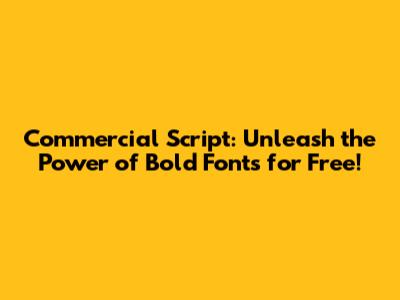
- Strategic Placement: Use bold fonts sparingly. Overusing them can dilute their impact. Think of them as seasoning—a little goes a long way. Make sure to use bold for headlines, key phrases, or important statistics. Your goal is to emphasize the information that you want to stand out.
- Consider the Audience: Tailor your font choices to your target audience. Consider the tone of your commercial and select fonts that reflect that tone. For instance, a fun, energetic commercial might use a bolder, more playful font, while a more serious commercial would use a more clean and elegant font.
- Readability Matters: Prioritize readability. Select fonts that are easy to read, even in bold. Avoid overly stylized fonts that might be difficult to decipher, especially on smaller screens or in fast-paced commercials.
- Consistency: Be consistent with your bold font usage. Establish a style guide and stick to it throughout your script. Consistent use of bold fonts helps the audience identify key information quickly.
Hey there, fellow creatives and marketing enthusiasts! Are you ready to supercharge your commercial scripts and grab your audience's attention? Well, you're in the right place! We're diving deep into the world of commercial scripts and, more specifically, how to make your words pop using bold fonts, all without breaking the bank. That's right, we're talking about commercial script bold font options that are absolutely free! I will guide you through crafting compelling scripts that convert, providing tips and tricks to make your commercial script stand out. This guide will help you craft captivating scripts that resonate with your audience and leave a lasting impression. Let's get started!
The Magic of Commercial Scripts and Why They Matter
Commercial scripts are the unsung heroes of marketing. They're the backbone of radio ads, TV commercials, online video campaigns, and even in-store announcements. A well-crafted commercial script can make or break your marketing efforts. Think about it: a captivating script can stop viewers in their tracks, making them want to know more about your product or service. A boring script, on the other hand, is a guaranteed scroll-away or channel change. So, the stakes are high, but the rewards are even higher!
Commercial scripts do more than just relay information; they tell a story. They evoke emotions, build trust, and ultimately, drive sales. When written with precision and clarity, a script becomes a powerful tool. It transforms viewers into loyal customers. Good scripts are memorable, and they connect with the audience on a deeper level. To truly stand out in today's crowded advertising landscape, you need a script that's both informative and engaging. That means having a firm understanding of your target audience and crafting a message that resonates with them. This is where bold fonts come into play, offering a way to add extra emphasis and clarity to your crucial points.
The Importance of a Good Script
Let’s be honest, we’re all bombarded with ads every single day. The average person sees thousands of advertisements annually. This means that if your script is just another voice, it's going to get lost in the noise. A great script grabs attention and does so quickly. It uses creative storytelling and, of course, a clear, concise message. Remember, you only have a few seconds to capture the attention of your audience. If your script doesn't resonate within those precious seconds, it's game over. You've lost your audience before they've even gotten started.
In the realm of commercial scripts, clarity is king. You have to clearly define your message and identify your target audience. Your script should be tailored to their needs, preferences, and pain points. Understanding your audience helps you choose the right language, tone, and formatting. By using these elements, you make sure your message hits home and connects with viewers. A well-crafted script is a blend of art and science, requiring both creativity and strategic thinking. But don't worry, we are here to help!
Unleashing the Power of Bold Fonts in Your Commercial Scripts
Alright, let's talk about the real stars of the show: bold fonts. Think of them as your secret weapon. Bold fonts can turn ordinary text into eye-catching headlines and emphasize crucial points. They add a visual layer that can make your script more appealing and easier to understand. If you want to highlight important information, bold fonts do the trick. They draw the reader's eye, guiding them to the most critical parts of your message. Also, bold fonts can help improve the readability of your script. They break up large blocks of text, making the script less intimidating and more digestible.
How to Effectively Use Bold Fonts
Best Free Options for Bold Fonts
Guess what? You don't need to spend a fortune to access great fonts. There are tons of free resources out there. Google Fonts, for instance, offers a huge library of high-quality fonts, many of which are available in bold variations. Websites like Font Squirrel and DaFont also provide a wide range of free fonts for both personal and commercial use. Make sure you understand the licensing terms before using a font in your commercial script. Some free fonts are only for personal use, so always double-check the fine print.
Crafting a Killer Commercial Script: Step-by-Step
Alright, let’s get down to the nitty-gritty and walk through the steps of crafting a killer commercial script. Don’t worry, it's not as scary as it sounds. We'll break it down into easy-to-digest steps.
How important is the call to action?
The call to action is crucial. It tells your audience what you want them to do after seeing your commercial. Make it clear, concise, and easy to follow. For example,